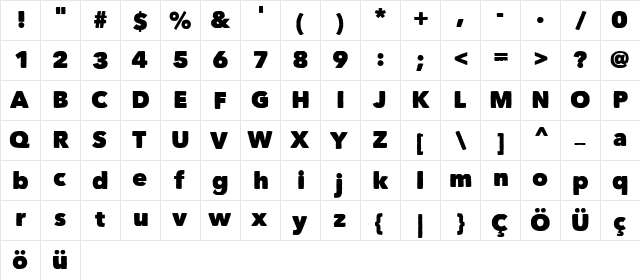
Matiz Regular
| Foundry | Beycan ǥtin |
| Designer | Beycan ǥtin |
Design Context for Matiz Typeface
Matiz is a composed and adaptable typeface that performs quietly and consistently across a wide range of design contexts.